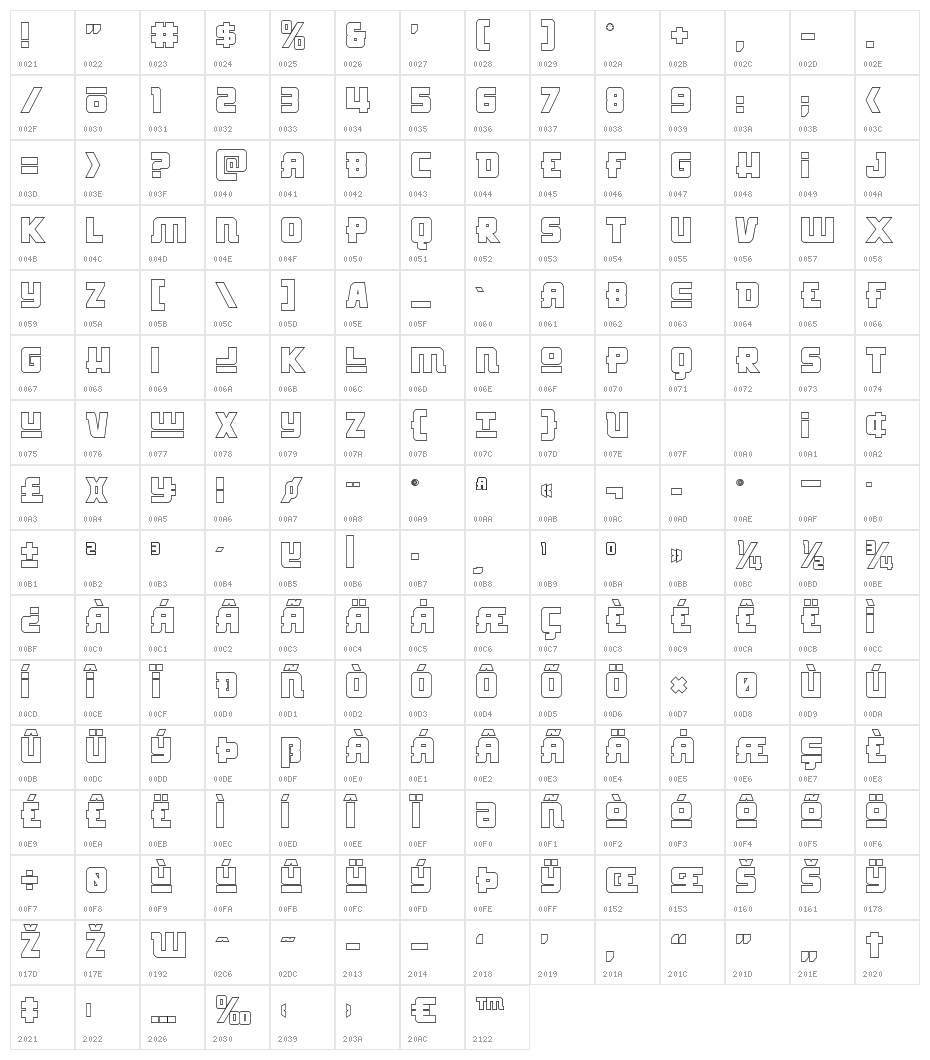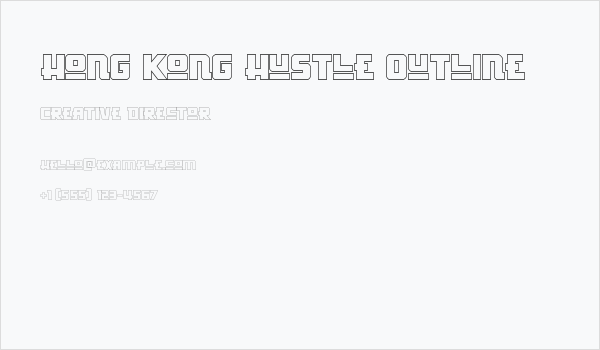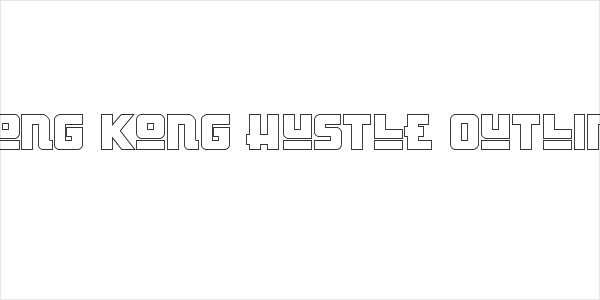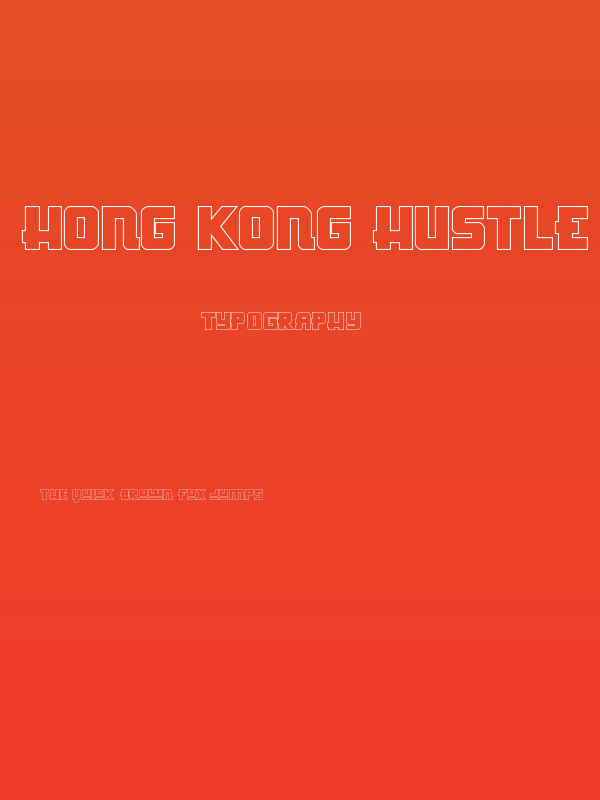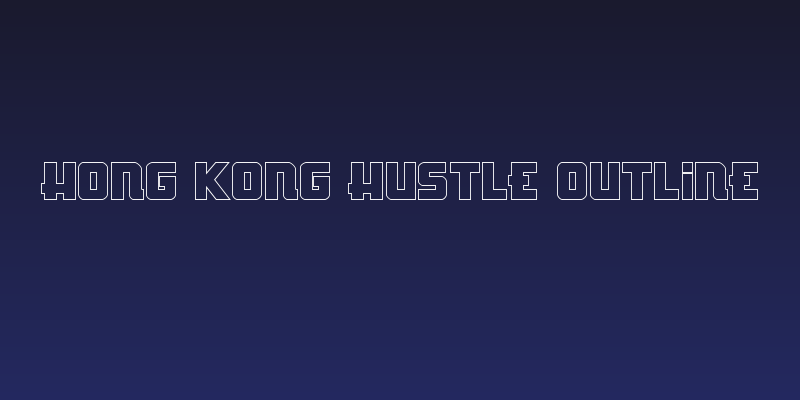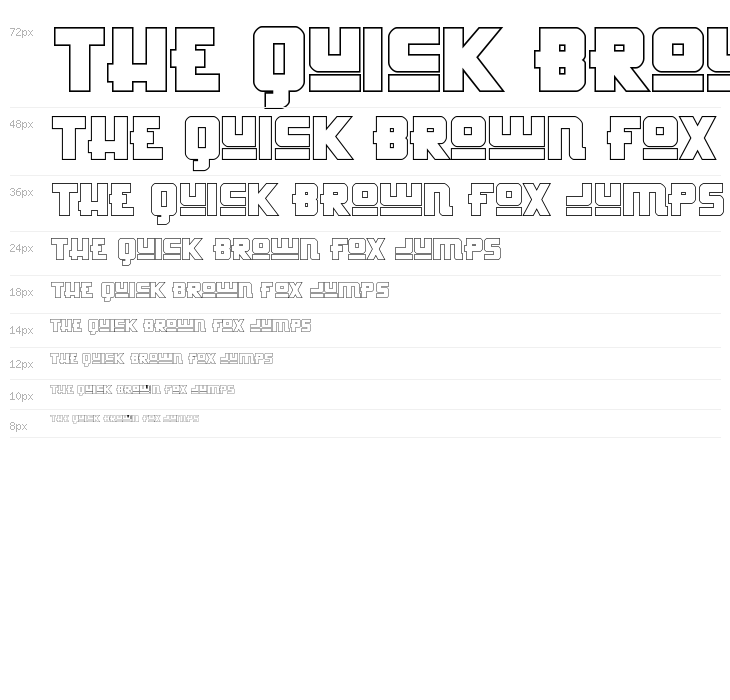
Hong Kong Hustle Outline Font
Hong Kong Hustle Outline Description
This font features a bold, geometric outline style that is both modern and eye-catching. The characters are constructed with thick lines and sharp angles, giving them a futuristic and industrial feel. The uppercase and lowercase letters maintain a consistent height, creating a uniform appearance. Numbers and special characters are designed to match the boldness and angularity of the alphabet, ensuring a cohesive look across all glyphs. The outline design adds a unique dimension, making it suitable for standout headlines and creative projects.
| Proposed Projects | Ideal for branding, posters, video game graphics, and any project requiring a futuristic or industrial look. |